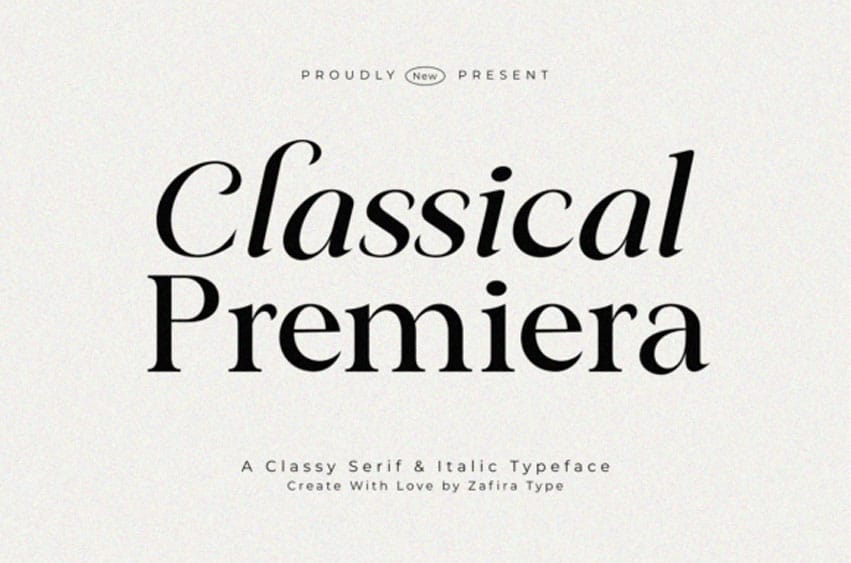
Classical Premiera Font is a sophisticated serif font that elegantly straddles the border of tradition and creativity. With its two distinguished styles, Regular and Italic, this font dances on the page to create a harmonious balance. The Regular style impresses with its bold and perfectly balanced letterforms, illuminating the page, ideal for crafting lengthy, formal text with gravitas.
Meanwhile, the Italic style provides an energetic flair, infusing your script with an artistic touch that’s ideally suited for accentuating quotes or highlighting text. The timeless sophistication of Classical Premiera adds a touch of elegance to any design, making it the quintessential choice for those desiring a formal, yet stylish font.